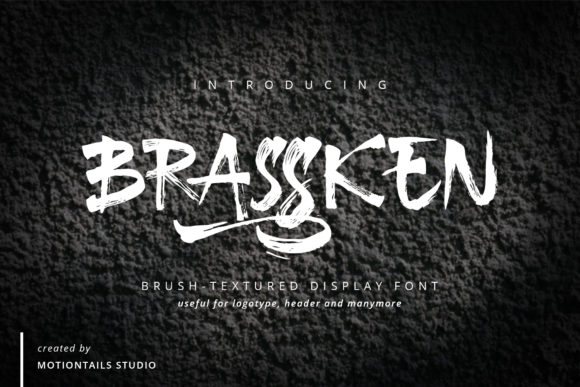
In a world of visual fanfare, where designs demand attention and messages crave impact, there exists a font that rises above the ordinary, a font that commands presence and captivates hearts – Brassken Font, the masterpiece from the forge of motiontailstudio.
Unleash the drama of your designs with Brassken, a brushed and dramatic display font that dances on the edge of fear and fascination. Let your Halloween creations come alive, pulsating with an energy that sends shivers down spines and sparks curiosity in the darkest corners of imagination.
With Brassken, transform your words into haunting whispers, your titles into spine-chilling omens, and your branding into a symbol of mystery and intrigue. Its bold strokes and sharp edges cut through the digital noise, demanding attention like a siren's call.
Embrace the allure of the unknown, the thrill of the supernatural, and the beauty of the macabre with Brassken. This font is not for the faint of heart, but for those who dare to explore the depths of creativity, it is an indispensable tool.
Picture a Halloween poster, its letters dripping with ectoplasmic goo, beckoning trick-or-treaters to a night of thrills. Or a horror novel cover, where the title leaps off the page, daring readers to delve into a world of shadows and secrets. With Brassken, these visions become reality, their impact amplified by the font's inherent power.
But Brassken's allure extends beyond the realm of horror. Its versatility allows it to shine in a multitude of other design projects, from grunge-inspired logos to edgy fashion branding. Unleash your creativity and watch as Brassken transforms the ordinary into the extraordinary, the mundane into the magnificent.
So, if you seek a font that will ignite your imagination, stir emotions, and leave an unforgettable impression, look no further. Brassken awaits, ready to be your creative ally, your secret weapon in the battle for design dominance. Dare to embrace its darkness, and witness the transformation of your designs into works of art that haunt and enchant.